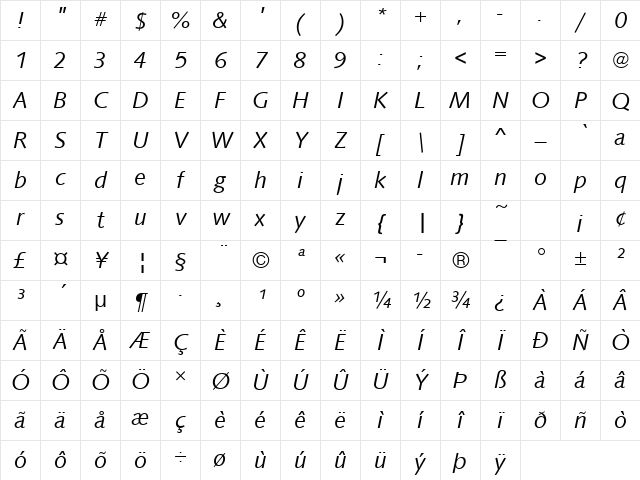
SyntaxT is a composed and adaptable typeface that performs quietly and consistently across a wide range of design contexts. The slanted form adds forward momentum and visual energy.